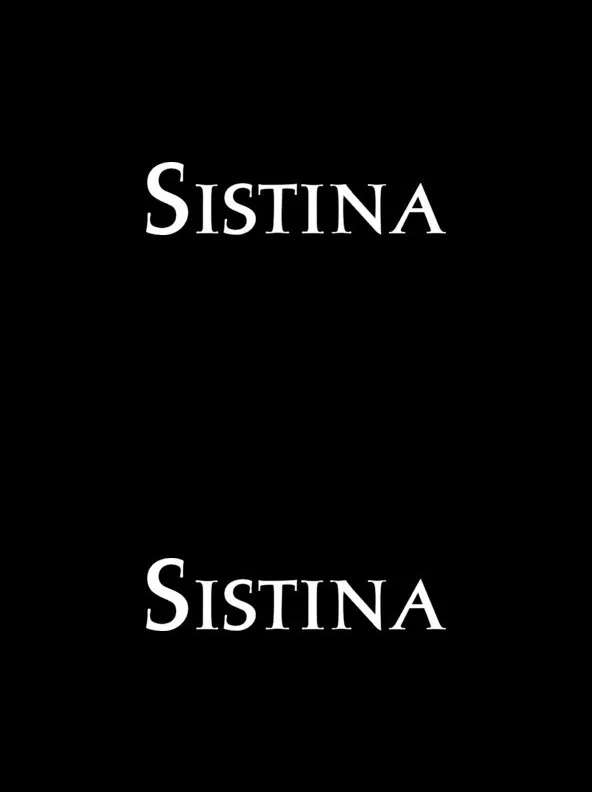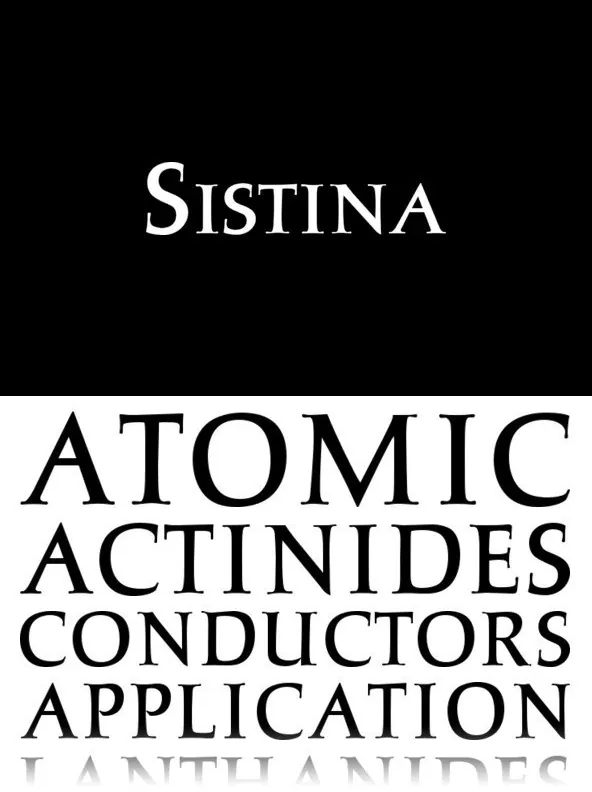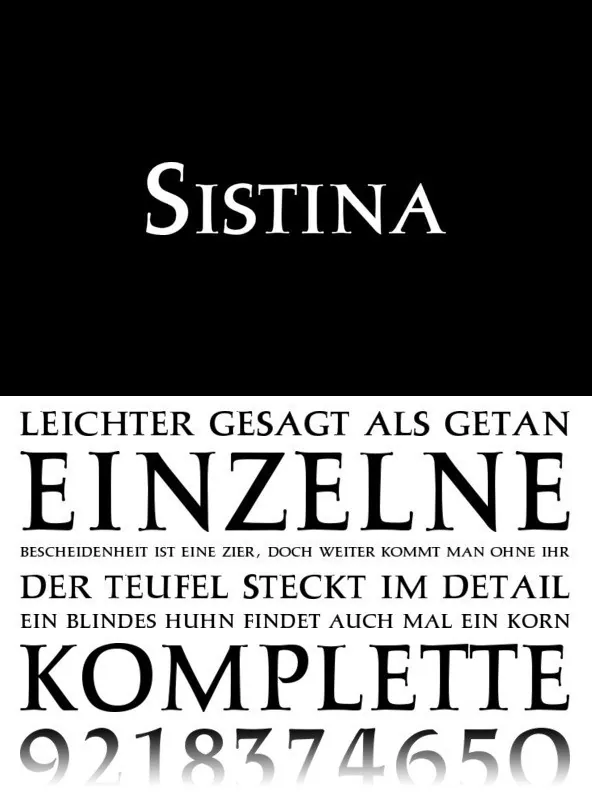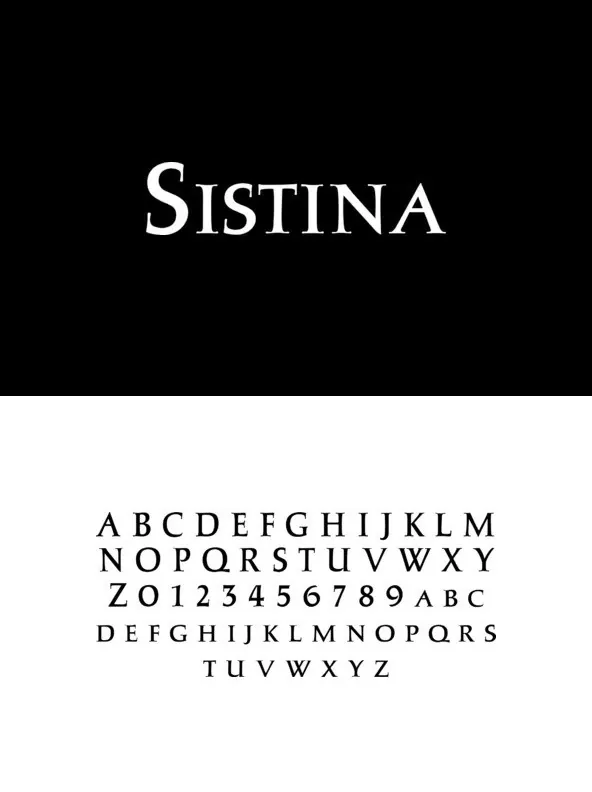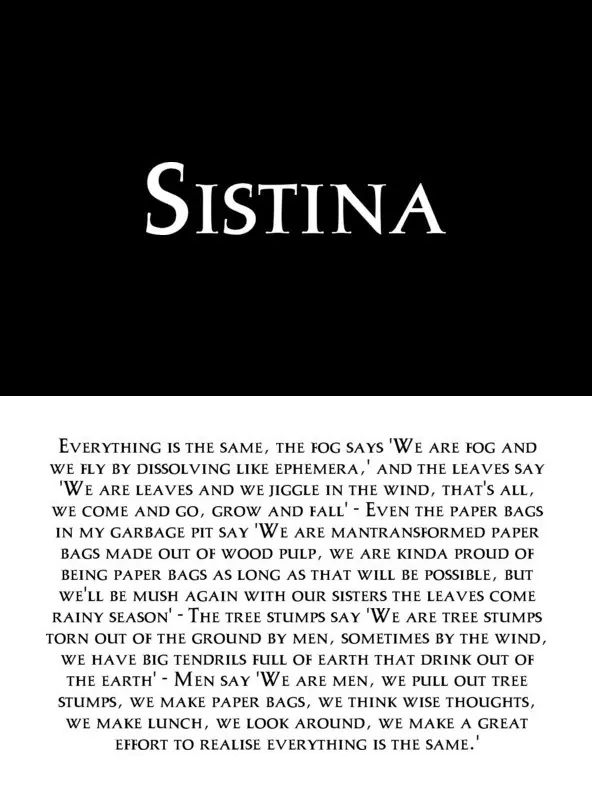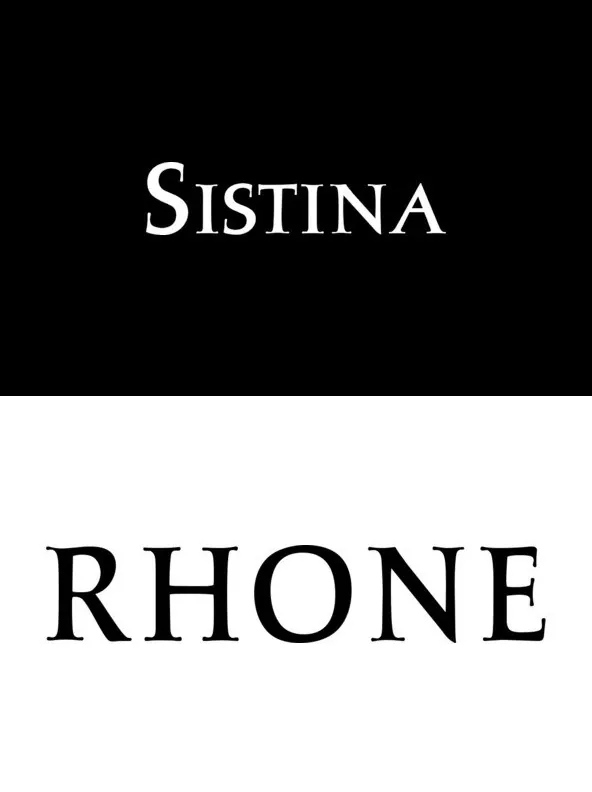
Sistina: Classic Roman-Inspired Typeface
Sistina is a distinguished typeface designed by Hermann Zapf in 1950. Drawing inspiration from classical Roman inscriptions, Sistina serves as a bold companion to Michelangelo Titling. The letterforms reflect Zapf’s careful study of architectural engravings in Rome, resulting in a font with strong presence and historical appeal.
With its origins in early hotmetal typesetting at D. Stempel AG, Frankfurt in 1951, Sistina is well-suited for impactful headlines, signage, and editorial design. The font maintains clarity and legibility even at larger sizes, making it ideal for projects requiring a blend of tradition and authority.
Key Features
Inspired by classic Roman carving
Bold, high-contrast letterforms
Ideal for titles and editorial use
A rich typographic heritage